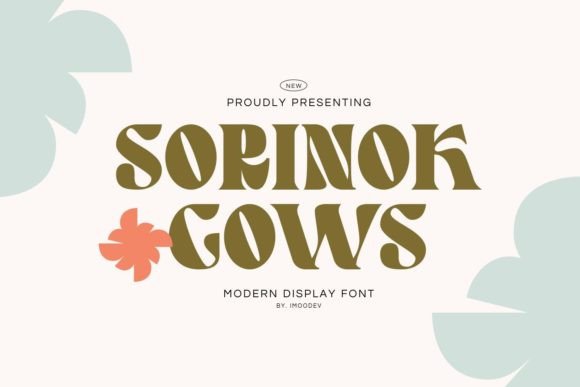
Behold the exquisite Sorinok Gows Font, a feminine masterpiece that exudes visual elegance, smooth curves, and beautiful ligatures. This font is not just a collection of letters; it's an expression of grace and sophistication that will make your designs shine.
With Sorinok Gows, you can unlock a world of creative possibilities. Its clear and attractive design ensures that your work will captivate audiences, leaving a lasting impression. Whether you're designing logos, invitations, branding, magazines, photography, cards, product packaging, or any other project, Sorinok Gows will elevate your designs to new heights.
This versatile font is a true chameleon, adapting seamlessly to both large and small sizes. Its versatility is unmatched, allowing you to create stunning designs that are both visually appealing and highly functional.
Whether you're a seasoned designer or just starting your creative journey, Sorinok Gows is the perfect font for you. Its user-friendly design makes it easy to integrate into your projects, allowing you to focus on creating awe-inspiring designs.
But Sorinok Gows is more than just a font; it's an investment in your creative future. This font is suitable for a wide range of projects and business sectors, including personal projects, studios, corporate, creative agencies, industrial, companies, and more. With Sorinok Gows, you'll have the power to create designs that resonate with your audience and drive your business forward.
So, embark on an artistic odyssey with Sorinok Gows Font and discover the boundless possibilities of creativity. Let your designs blossom with sophistication and elegance, and captivate your audience with every stroke.